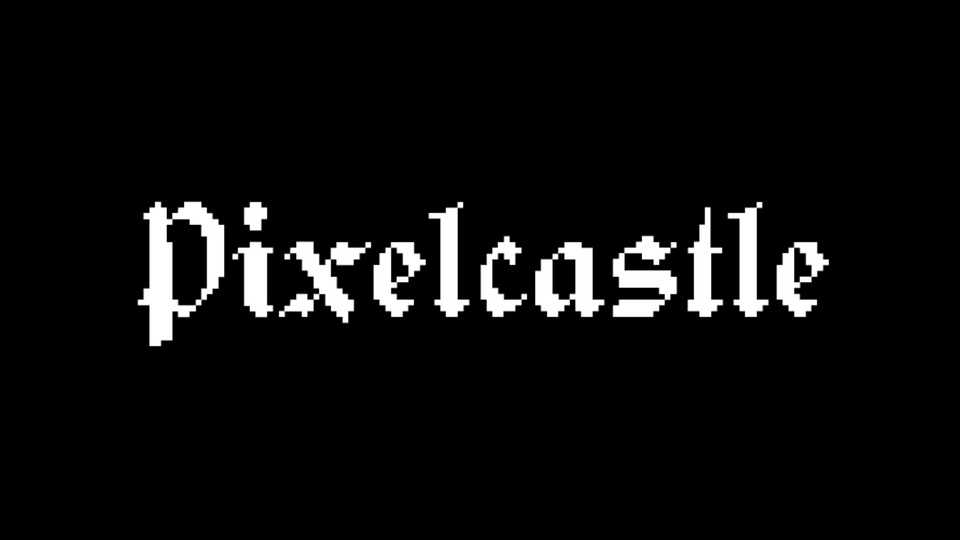
Download Pixelcastle font, a blackletter pixel typeface that represents the fantasy world, magic realms, knight’s tales and warrior legend. Pixelcastle font is perfect for pixel art, textile design, comic books and classic video games.
Designer: Leonhard Katschner